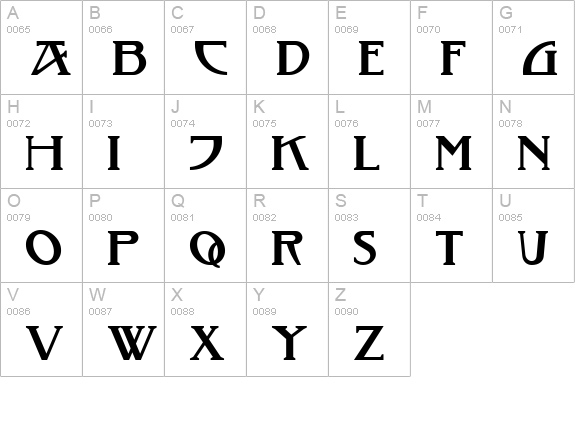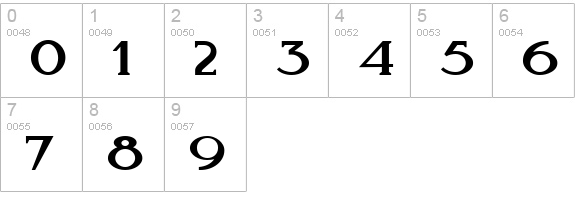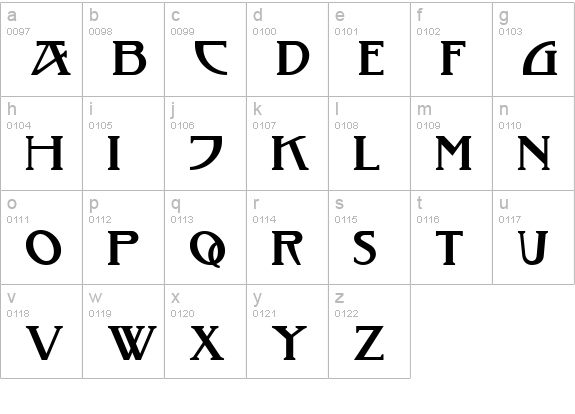
Tobacco Road NF Font Details
Tobacco Road NF is a classic and timeless font that exudes a sense of vintage charm and elegance. With its bold and rustic appearance, this typeface is perfect for adding a touch of nostalgia to any design project. Whether you're working on a retro-inspired poster, a vintage logo, or a rustic wedding invitation, Tobacco Road NF is sure to make a statement. Best of all, Tobacco Road NF is free to download at FontsMarket.com! This means you can easily access this stunning font and incorporate it into your creative endeavors without any cost. Don't miss out on the opportunity to enhance your designs with the unique character and style of Tobacco Road NF. Download it today and bring a touch of old-world sophistication to your next project.